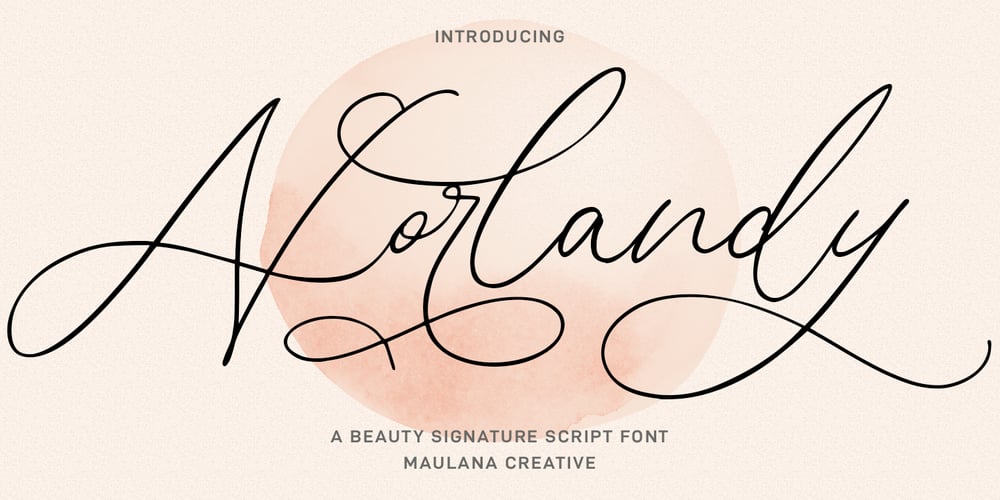
Norlandy Font Family was designed by Gilang Maulana and published by Maulana Creative. Norlandy contains 1 styles and family package options. Norlandy is a beauty signature script font. With thin tall contrast stroke, fun character with a bit of ligatures and stylistic alternates. To give you an extra creative work. Norlandy font support multilingual more than 100+ language. This font is good for logo design, Social media, Movie Titles, Books Titles, a short text even a long text letter and good for your secondary text font with sans or serif. Make a stunning work with Norlandy font. Cheers, Maulana Creative